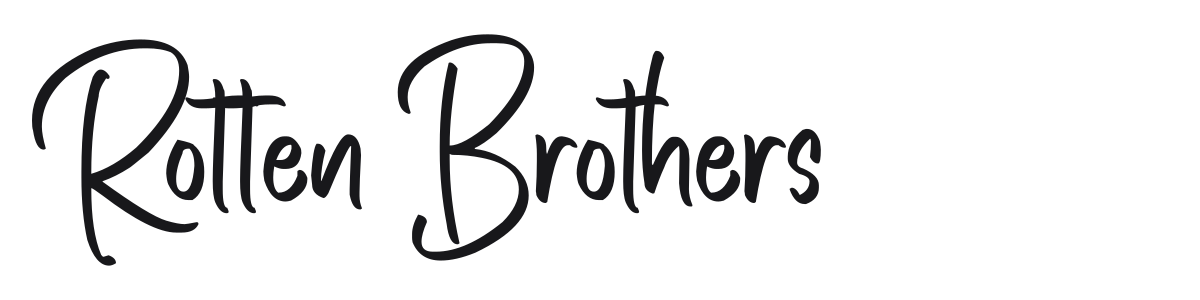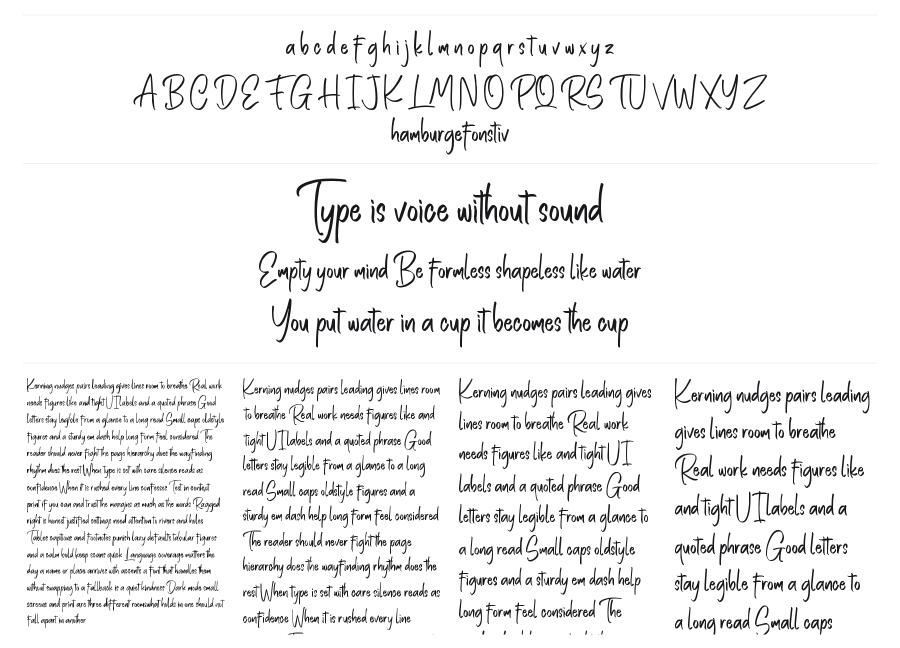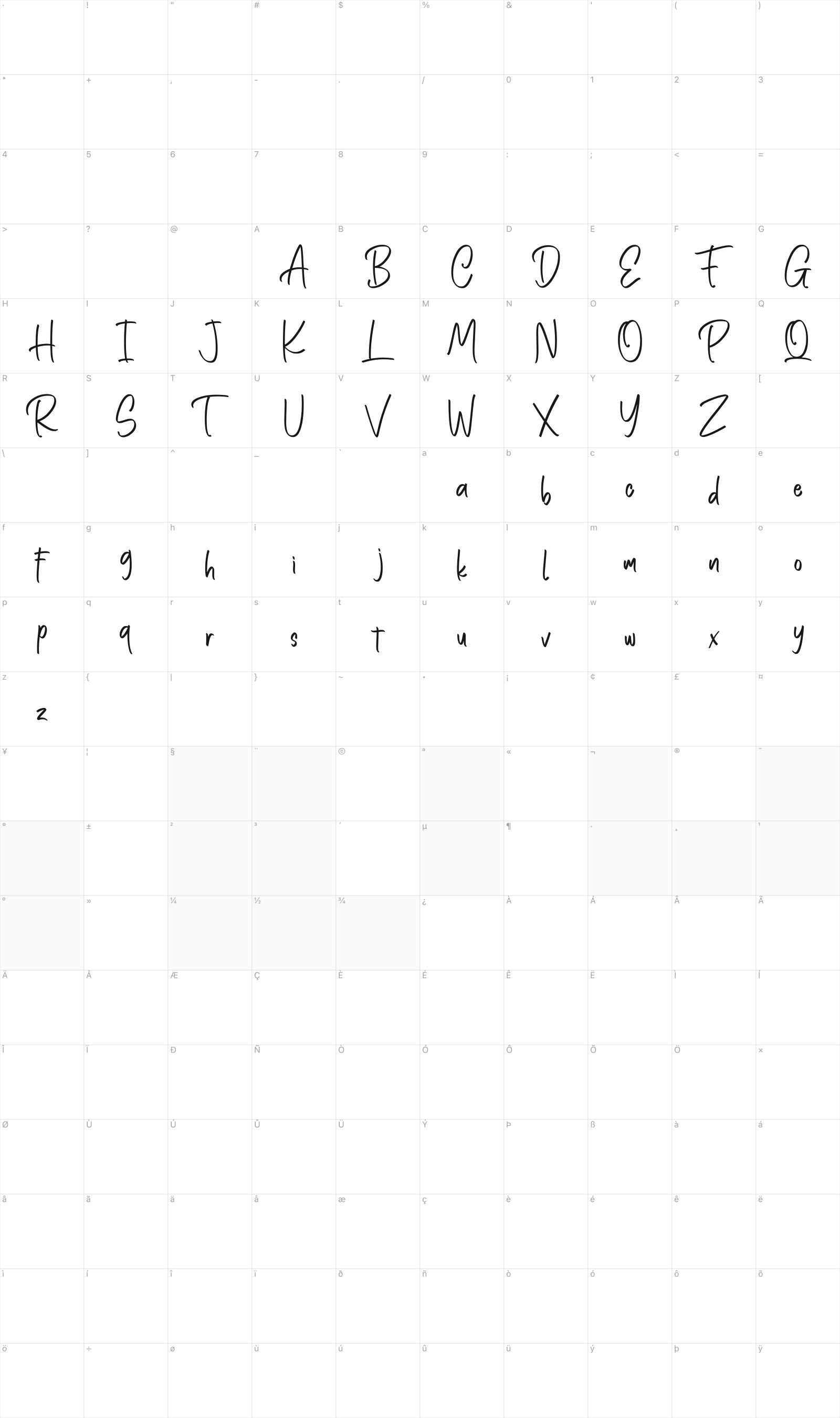
Rotten Brothers
by Bluestype Studio · Website
Rotten Brothers is a casual handwritten script from Bluestype with a loose, natural pen feel. Letters connect with easy, unhurried strokes and sit on a gently wandering baseline that keeps things feeling genuinely hand-drawn rather than mechanical. It carries the warmth of a personal note and works well wherever a friendly, informal voice is needed.